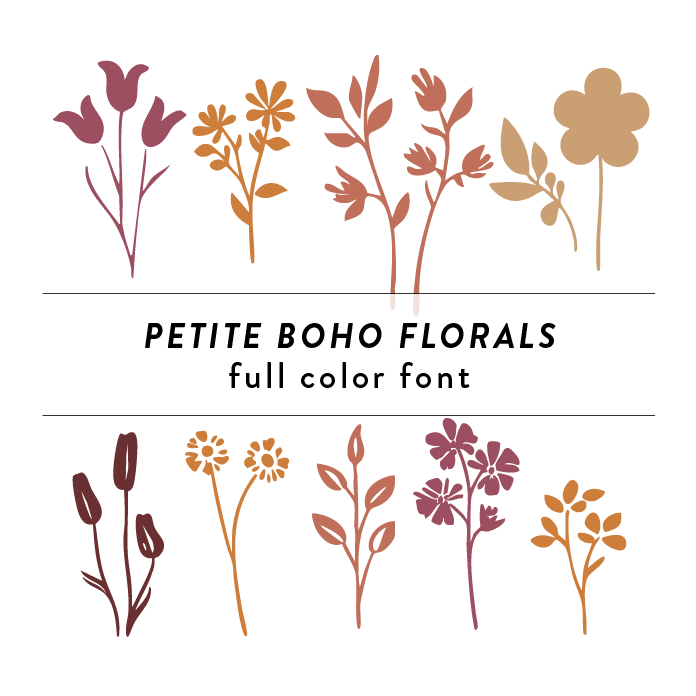
Boho Florals Full Color Font is a whimsical and vibrant font design featuring intricate floral patterns inspired by nature. With a handcrafted look, this font adds a touch of bohemian charm to any project. Perfect for invitations, greeting cards, and branding materials that require a creative and organic touch. This font is a OTF craft font that will appear in color only when used with the silhouette software.